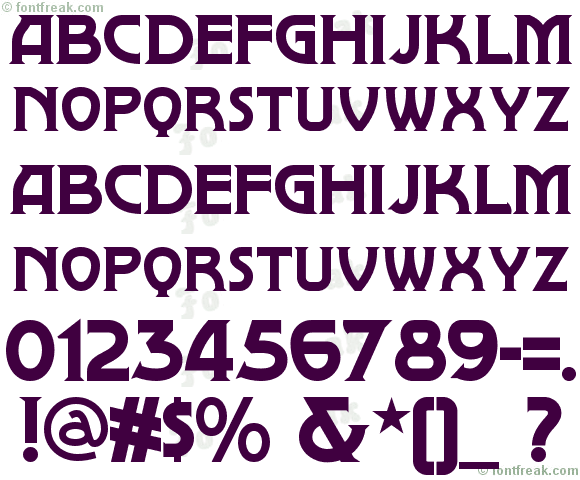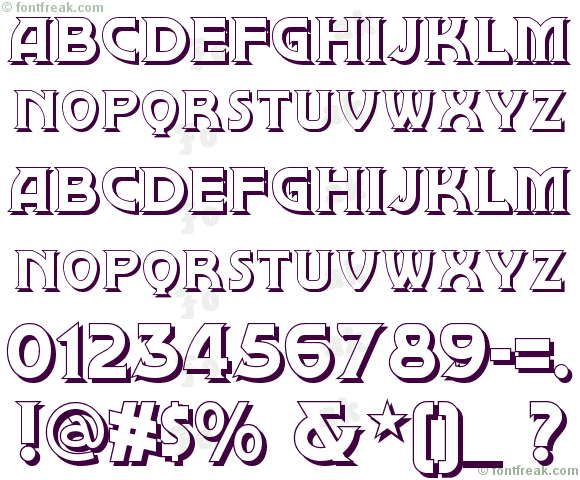
Brownwood Shadow NF
Brownwood NF
Brownwood Shadow NF is a distinctive display font designed by Nick Curtis, categorized as a decorative typeface. This font features a unique interplay of bold strokes and shadowed elements, giving it a three-dimensional appearance that captivates the viewer's attention. The stroke weight is robust, with minimal contrast, resulting in a cohesive visual impact. The spacing is generous, enhancing readability while allowing the decorative features to shine through. The font's shadow effect adds depth, making it an excellent choice for designs that require a touch of flair.
The Brownwood Shadow NF font is particularly well-suited for various creative applications. It excels in crafting eye-catching movie posters, where its boldness can effectively convey drama and excitement. Additionally, this font can elevate wedding invitations, providing a whimsical yet elegant touch that resonates with couples seeking a memorable presentation. Restaurant menus can also benefit from its unique charm, drawing patrons in with visually appealing typography that enhances the dining experience. Furthermore, it serves as a striking choice for promotional materials, such as flyers and banners, aimed at small businesses looking to make a lasting impression.
What truly sets the Brownwood Shadow NF apart is its ability to transform ordinary text into a striking visual statement. Whether used for print or digital media, this font infuses designs with personality and character, ensuring that your message stands out in a crowded marketplace. Embrace the charm of Brownwood Shadow NF and elevate your projects to new heights.